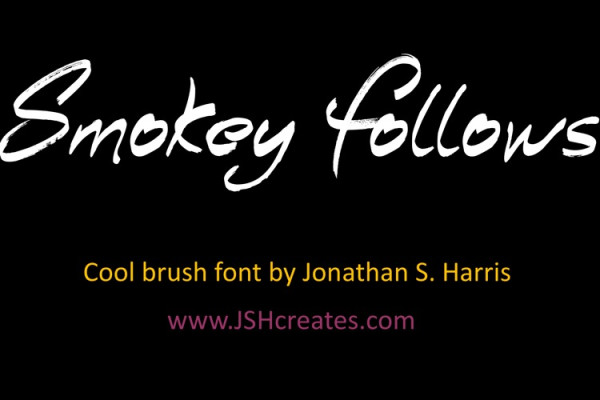
Smokey Follows Font
Smokey Follows Font. Up for grabs is this cool hand-written brush font. Perfect for advertising purposes, including invitation cards, book covers, shirts, posters, logos and much more!